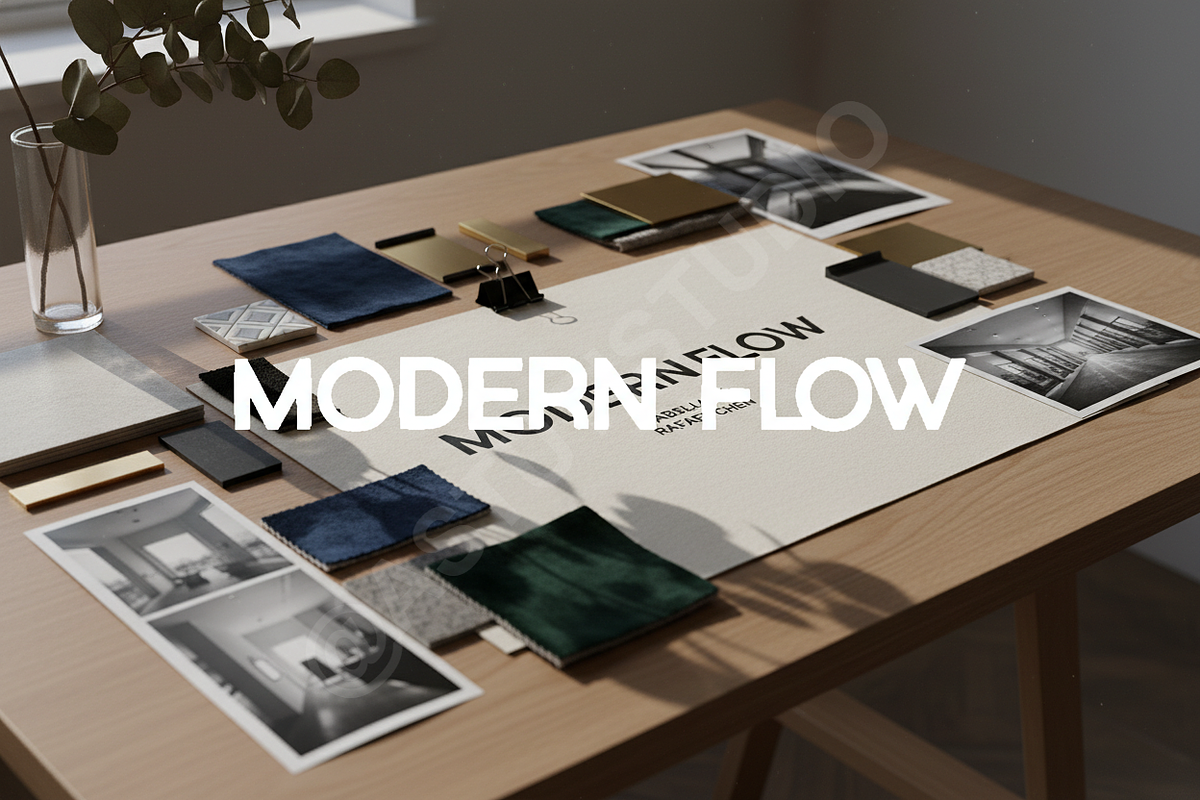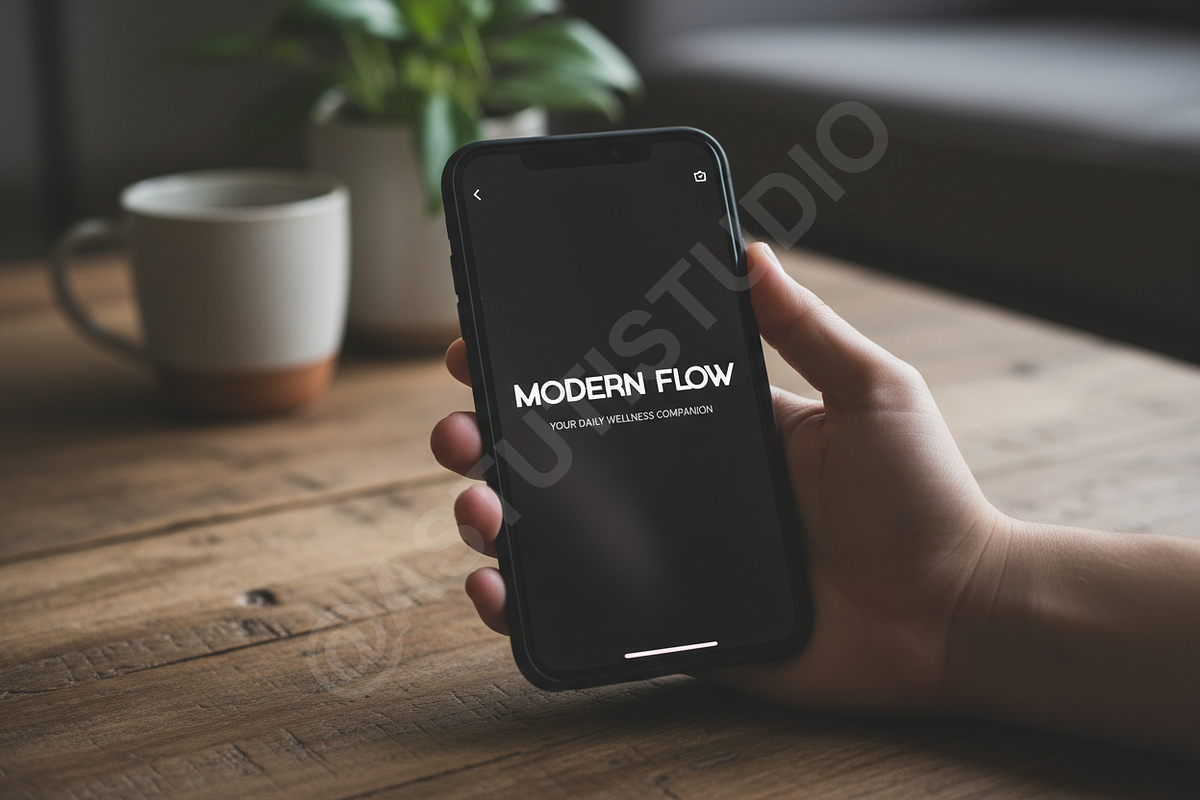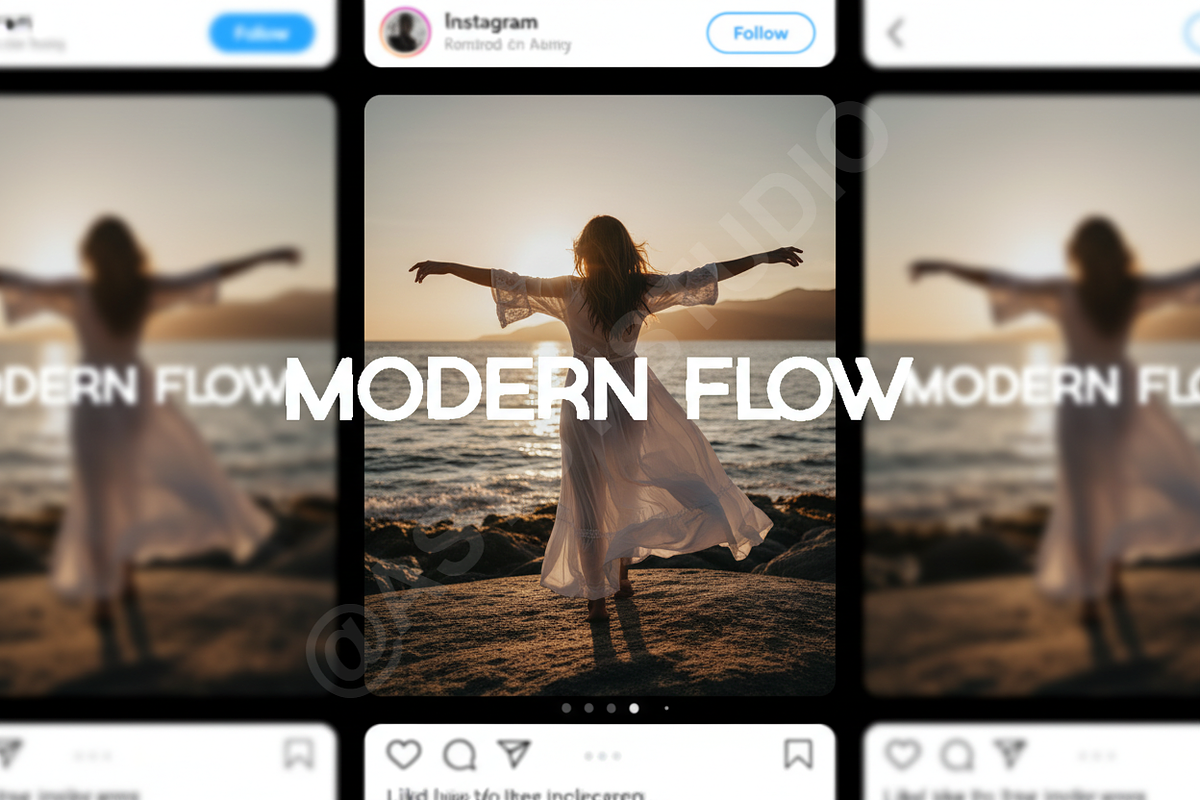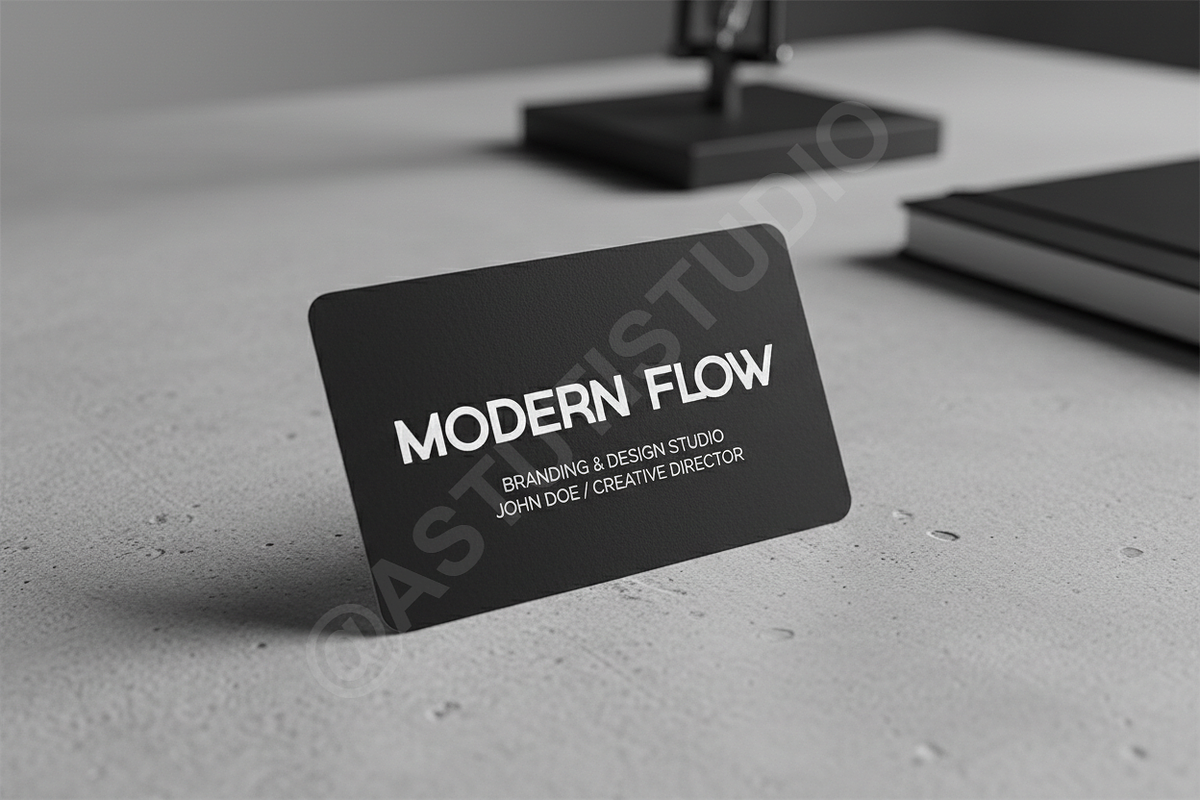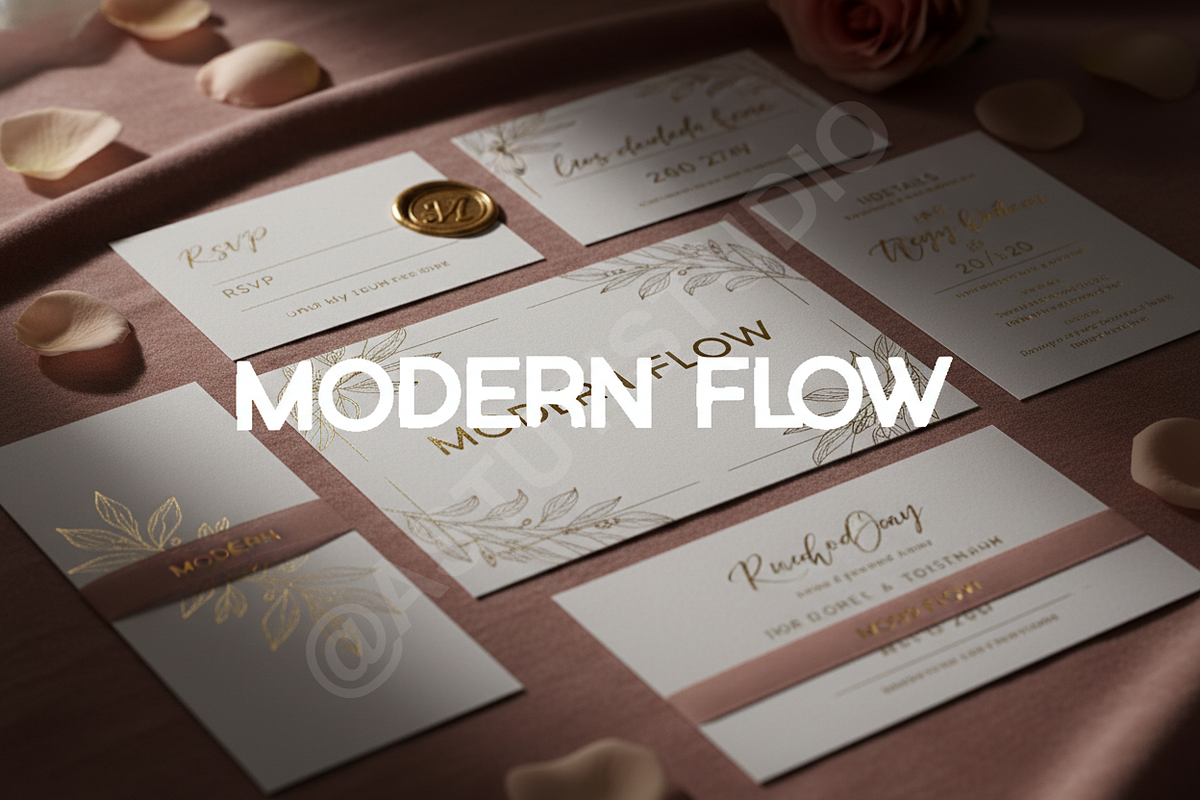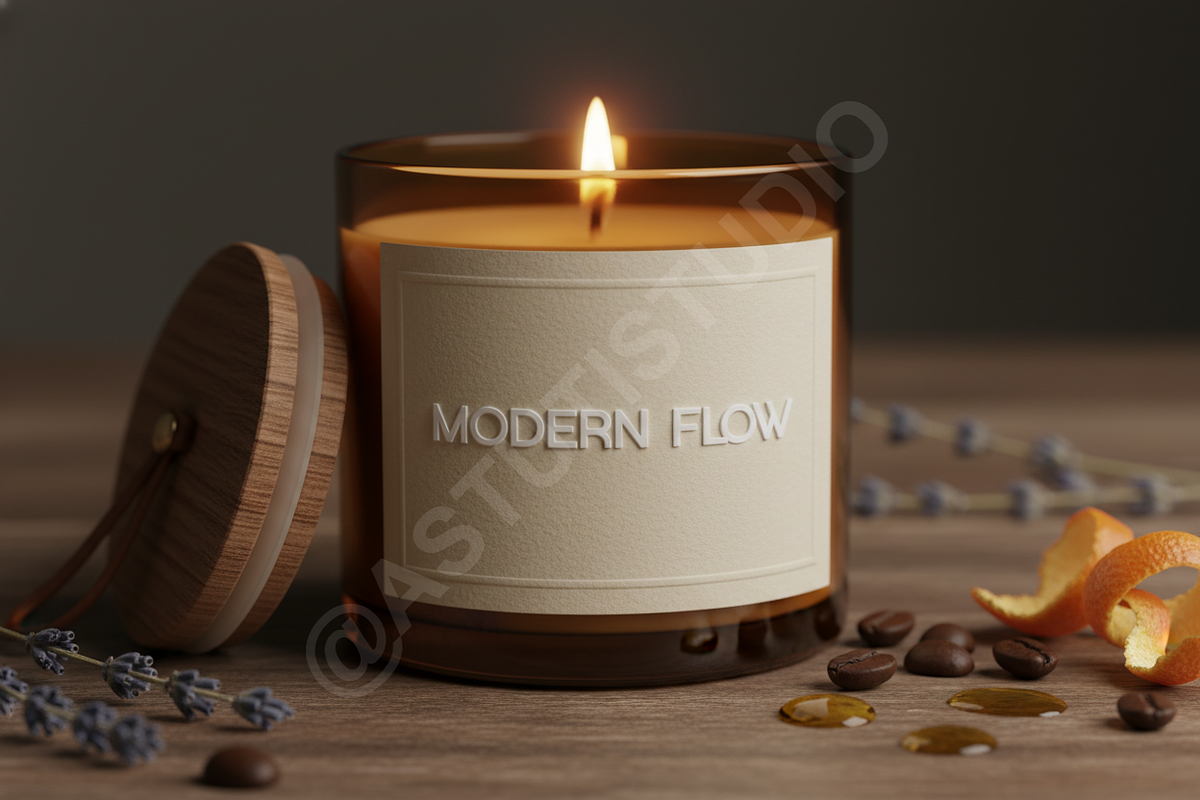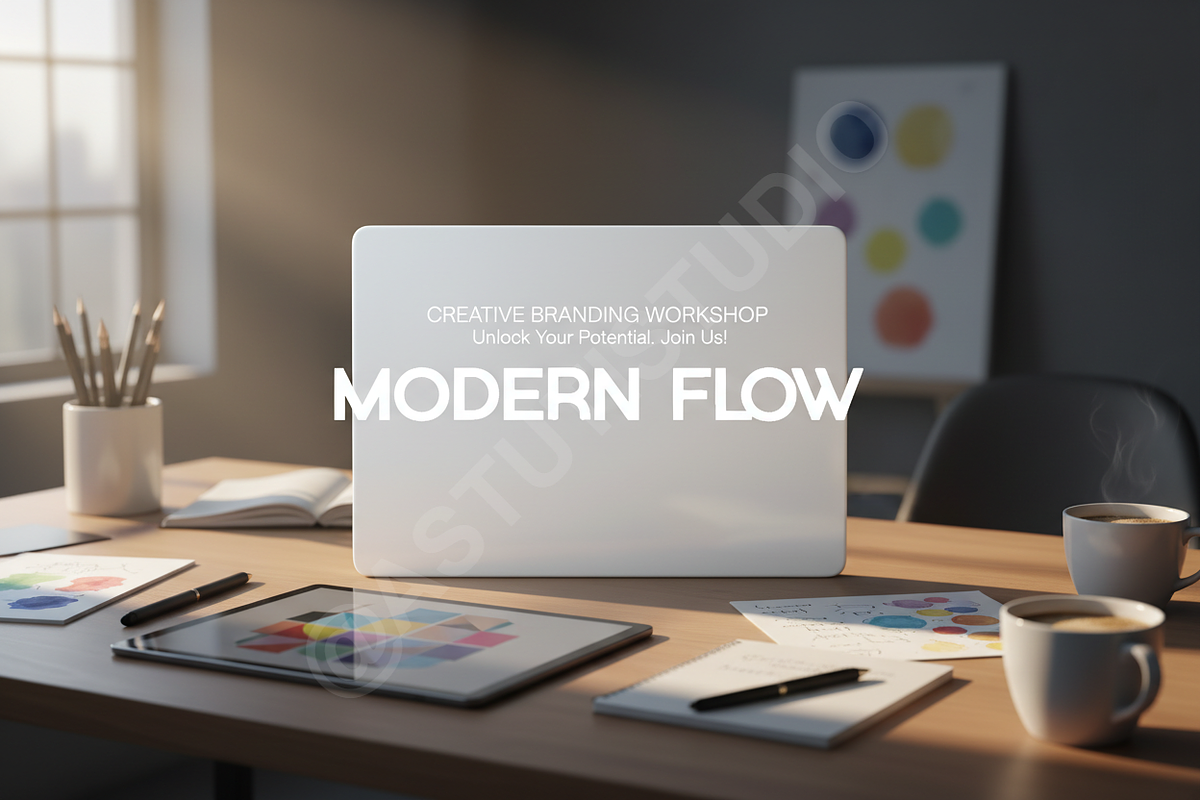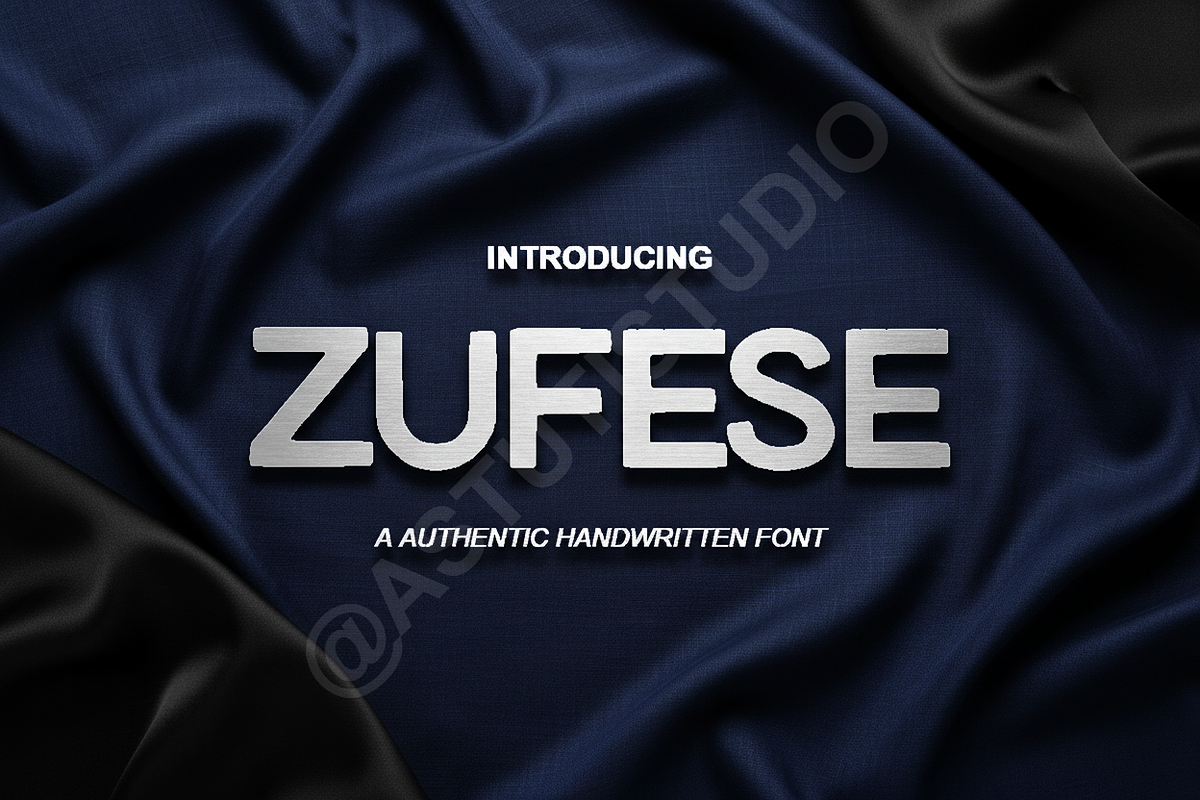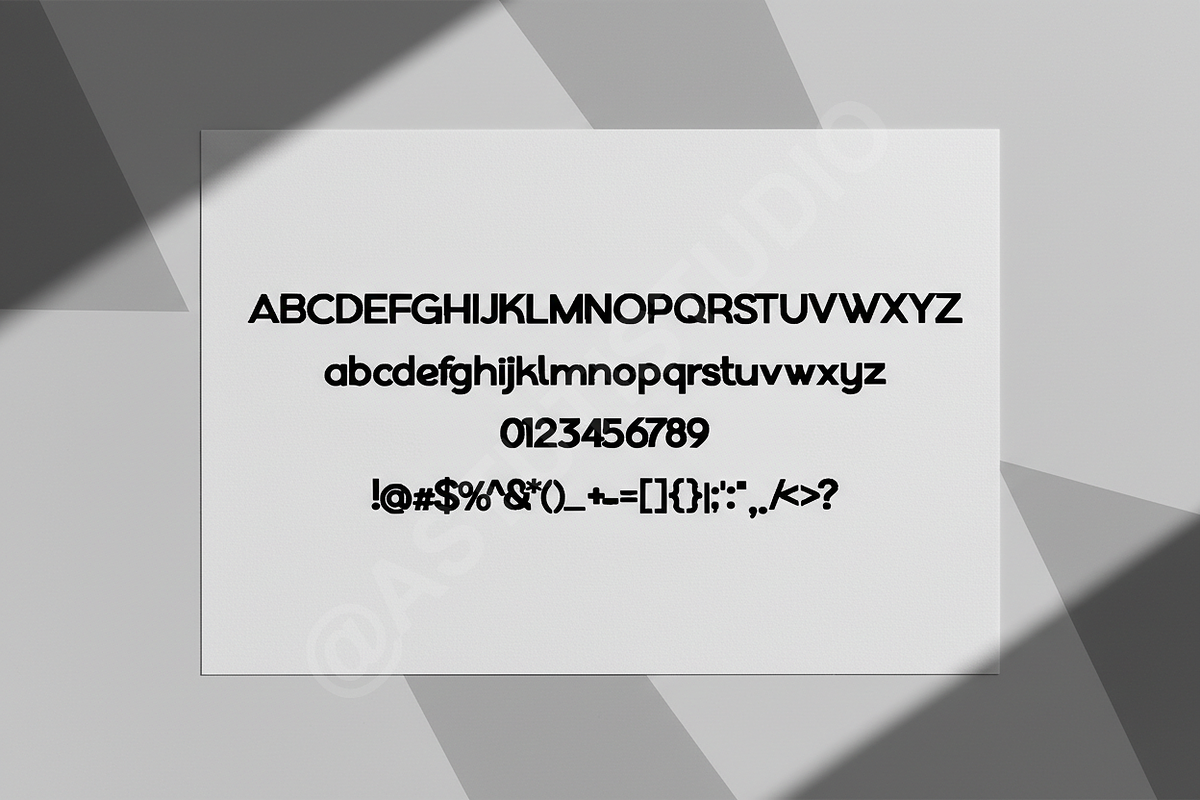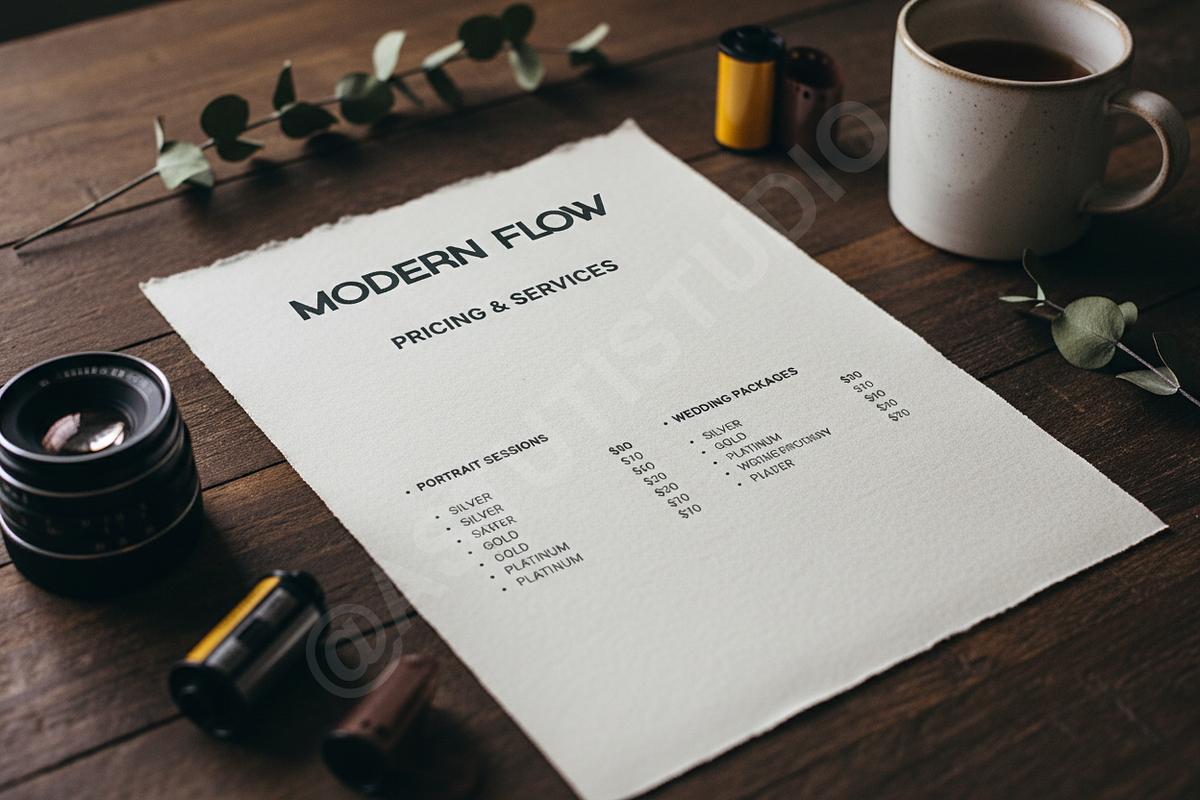
Zufese — Premium Elegant High-Contra
Introduction
Zufese is the definitive modern serif typeface, meticulously crafted for the high-end creative professional. It strikes a crucial balance between classical architecture and cutting-edge geometry, delivering a highly sophisticated visual signature. If your project demands unparalleled elegance and distinct readability, Zufese is the foundational asset you need. It embodies true luxury, instantly elevating brand perception.
Premium Applications
Zufese is optimized for delivering powerful impact across sophisticated design channels:
- Luxury Branding & Identity Systems
- High-Fashion Editorial Layouts (Magazines, Lookbooks)
- Prestige Product Packaging and Labeling
- High-Impact Social Media and Digital Campaigns
Key Typographic Features
Designed with precision and flexibility in mind, Zufese offers robust functionality:
- True High-Contrast Styling: Sharp lines and high stroke variation for a dramatic effect.
- Extensive Multilingual Support (Latin Extended A).
- Full Set of Standard and Discretionary Ligatures.
- Stylistic Alternates for unique header and logo design.
- Optimized Kerning and Spacing for flawless readability.